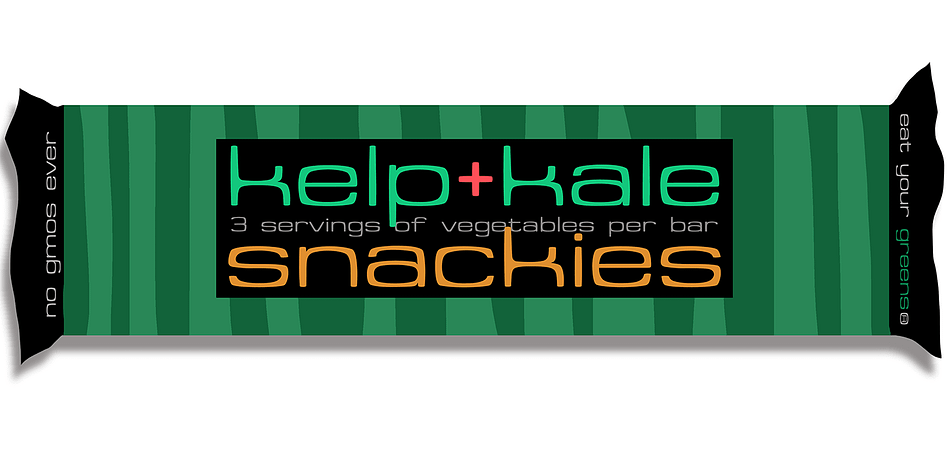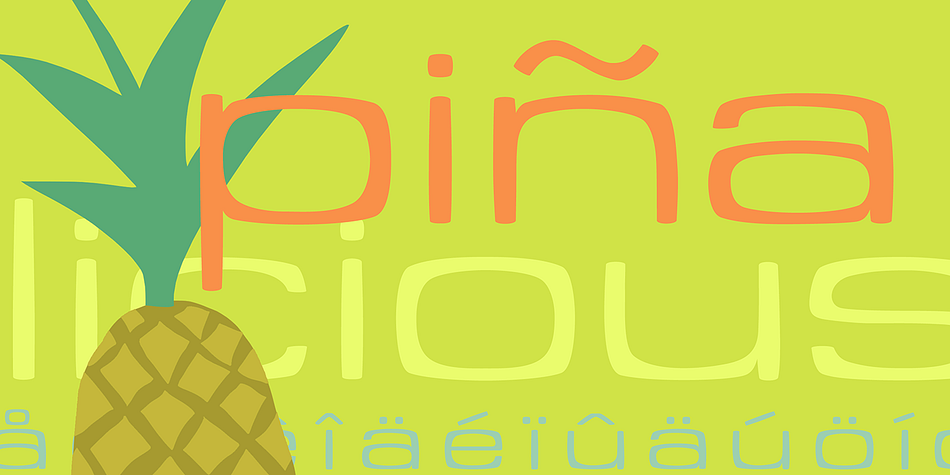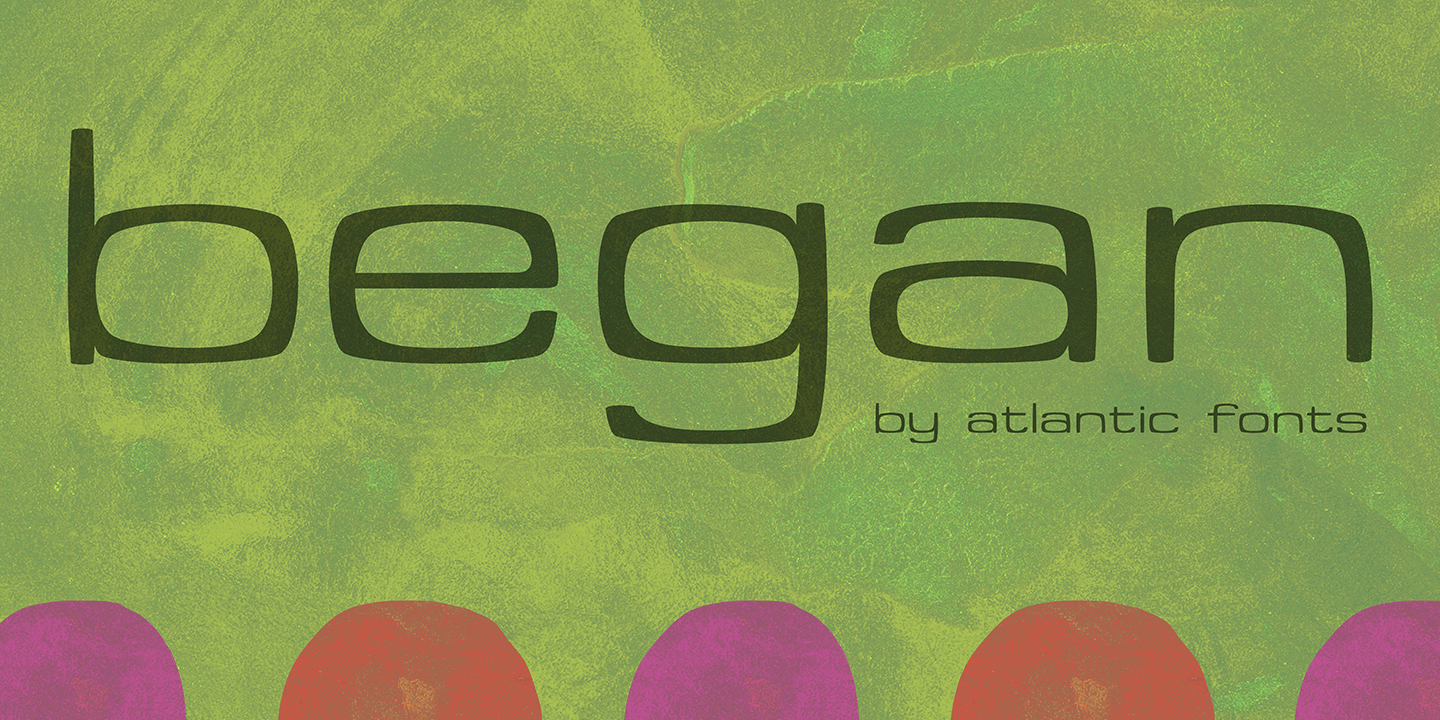
Designed by Ken Russell, Began is a display sans font published by Atlantic Fonts.
Began is square and round, athletic and unapologetic. It may be just what you are looking for.
Foundry | Atlantic Fonts |
Designer | Ken Russell |